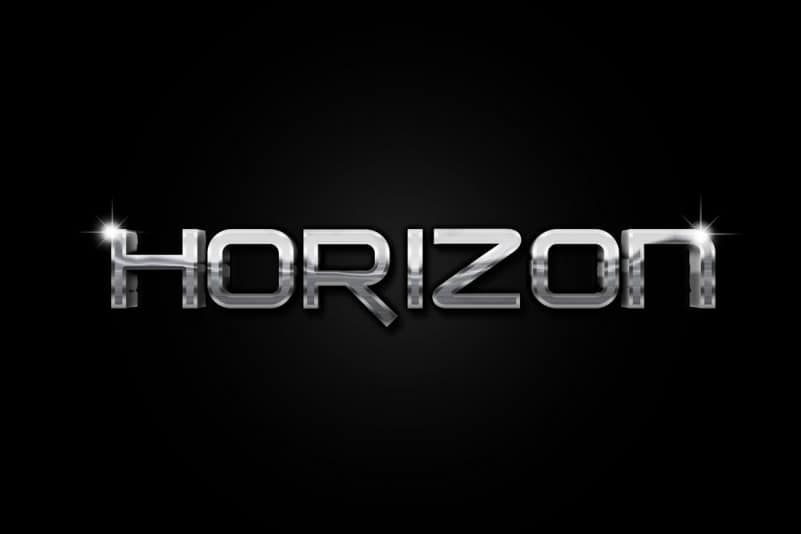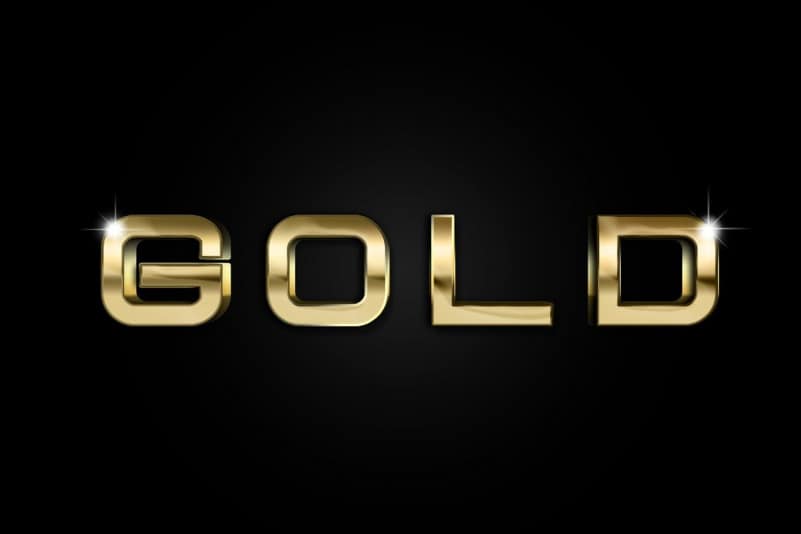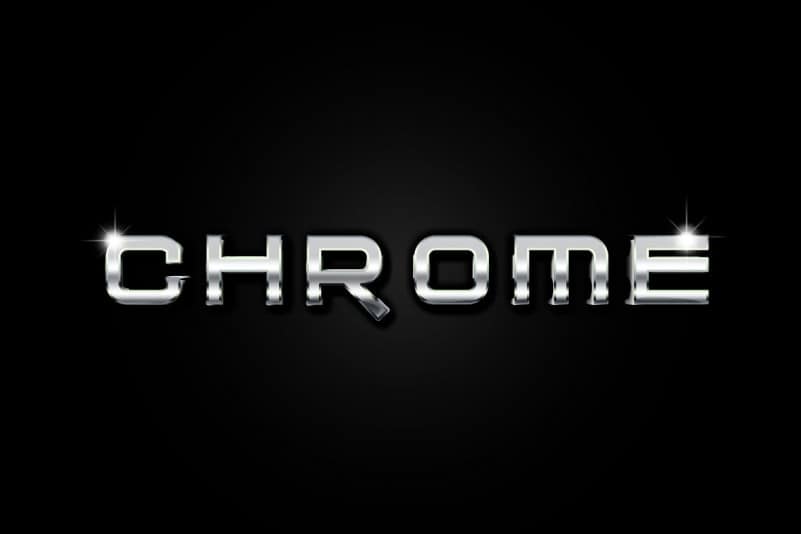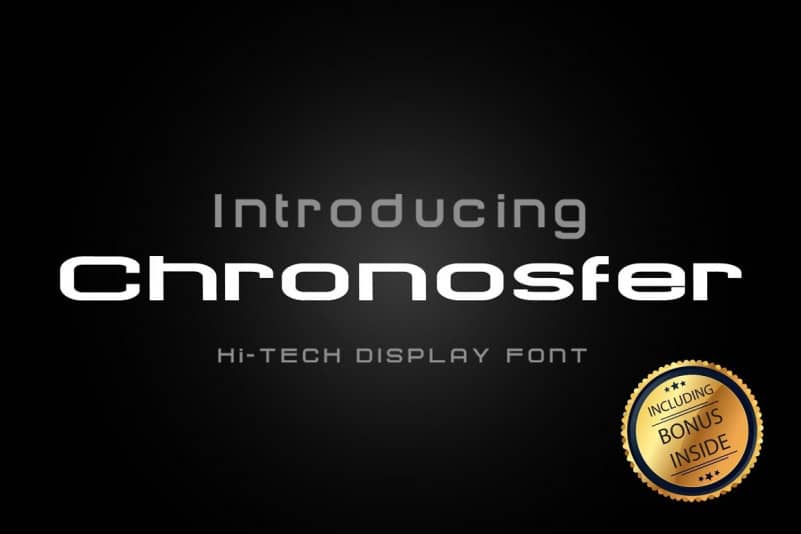
Chronosfer Display Font is a futuristic typeface with a modern but still simple impression, so it looks clean and attractive with the help of a number of alternative fonts. It’s designed and shared by AnomaliDesign. It’s a bold hand-printed typefamily, that celebrates the original letterpress style and all its beautiful imperfections. It’s narrow powerful shapes lend itself to strong design, whilst the textures give it an authentic voice.
Chronosfer Display Font is a futuristic typeface with minimalist, wide letters. It includes English uppercase letters, alternate letters, basic punctuation and numbers.